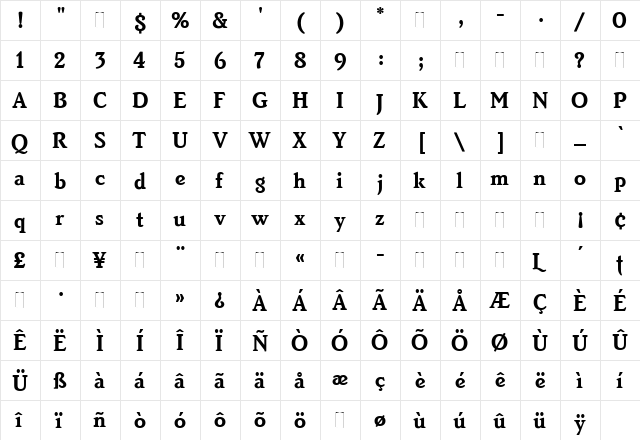
Brighton Bold Regular
Design Context for Brighton Bold Typeface
Brighton Bold offers clean, dependable letterforms without strong stylistic allegiance, making it a practical choice for designers who need flexibility. The heavy weight commands attention and anchors typographic hierarchies.